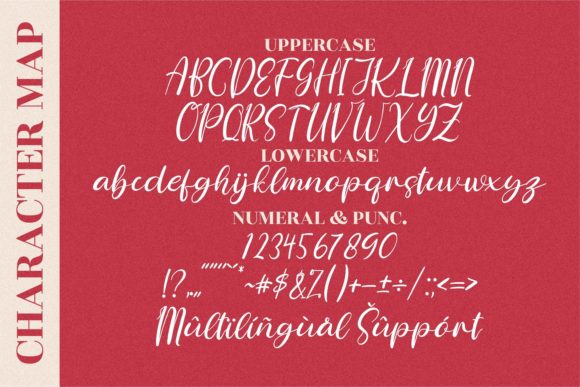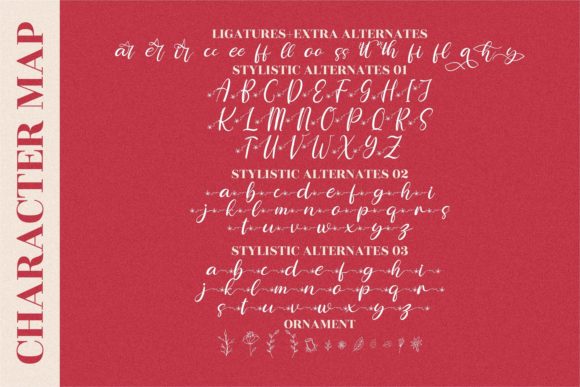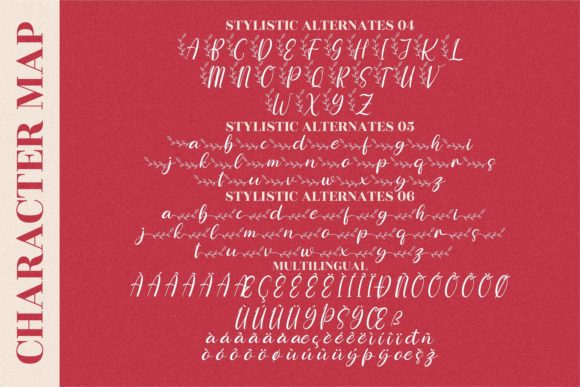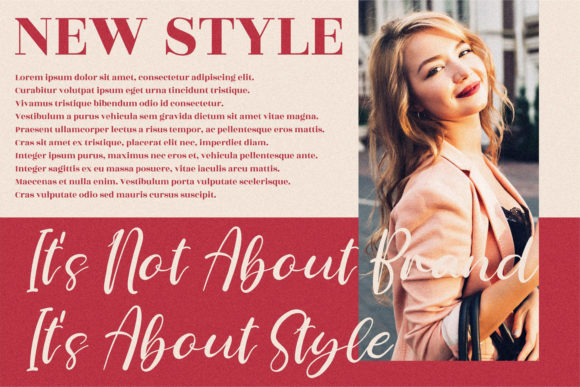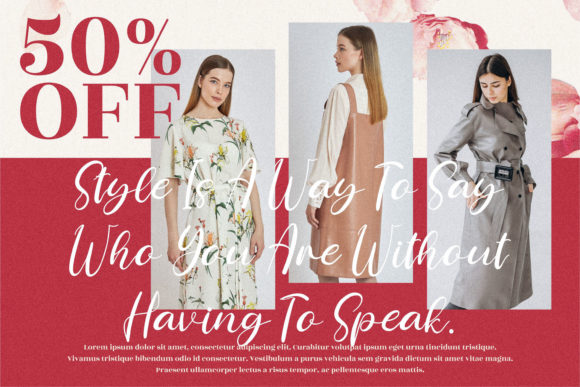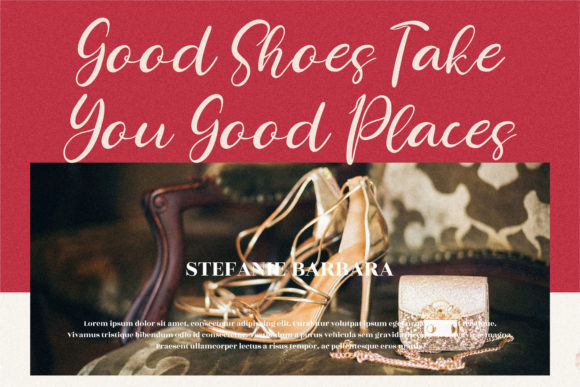
Introducing Happy Floral Font: Elevate Your Designs with Elegance and Sophistication
Are you a designer or crafter looking for a font that can add a touch of luxury and sophistication to your projects? Look no further than the Happy Floral Font. This beautiful light handwritten font is designed to make a stunning impact, with a unique feel that sets it apart from other fonts. In this article, we’ll explore the features and benefits of Happy Floral Font, and show you how it can elevate your designs to the next level.
A Unique and Beautiful Font
Happy Floral Font is a light handwritten font that exudes elegance and sophistication. Its unique feel is perfect for designers and crafters who want to add a touch of luxury to their projects. Whether you’re creating a wedding invitation, a branding campaign, or a social media graphic, Happy Floral Font is the perfect choice. The font’s delicate lines and curves create a beautiful, flowing script that’s sure to impress.
One of the standout features of Happy Floral Font is its PUA (Private Use Area) encoding. This means that you can access all of the amazing glyphs and ligatures with ease, giving you even more creative freedom to customize your designs. With PUA encoding, you can easily insert special characters, such as flourishes and swashes, to add an extra touch of elegance to your projects.
Happy Floral Font is versatile and can be used for a wide range of design projects, including:
- Branding campaigns and logos
- Signs and banners
- Packaging and labels
Whether you’re creating a digital or print design, Happy Floral Font is the perfect choice. Its elegant and sophisticated feel makes it ideal for projects that require a touch of luxury and refinement.
Happy Floral Font offers a range of benefits for designers and crafters, including:
- Elegance and sophistication: Add a touch of luxury to your designs with Happy Floral Font’s unique and beautiful script.
- Easy to use: With PUA encoding, you can easily access all of the font’s glyphs and ligatures.
- Versatile: Use Happy Floral Font for a wide range of design projects, from wedding invitations to branding campaigns.
- Time-saving: With Happy Floral Font, you can create stunning designs in no time, thanks to its ease of use and flexibility.
In conclusion, Happy Floral Font is a beautiful and elegant font that’s perfect for designers and crafters who want to add a touch of luxury to their projects. With its unique feel, PUA encoding, and versatility, Happy Floral Font is the perfect choice for a wide range of design projects. Whether you’re creating a wedding invitation, a branding campaign, or a social media graphic, Happy Floral Font is sure to make a stunning impact.